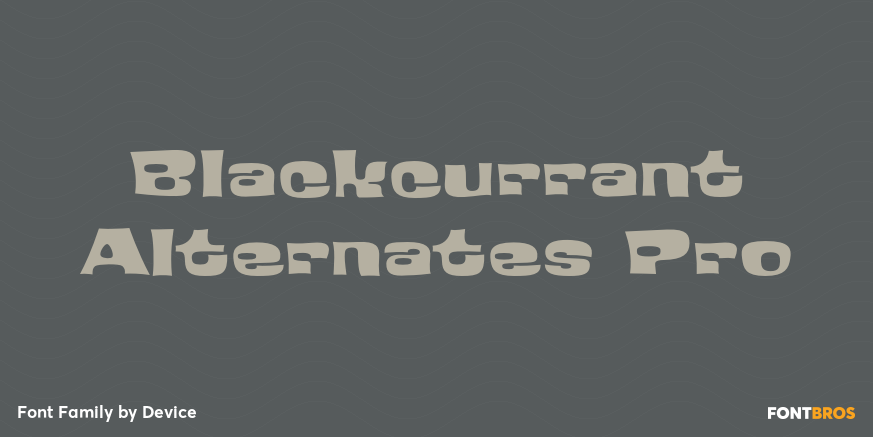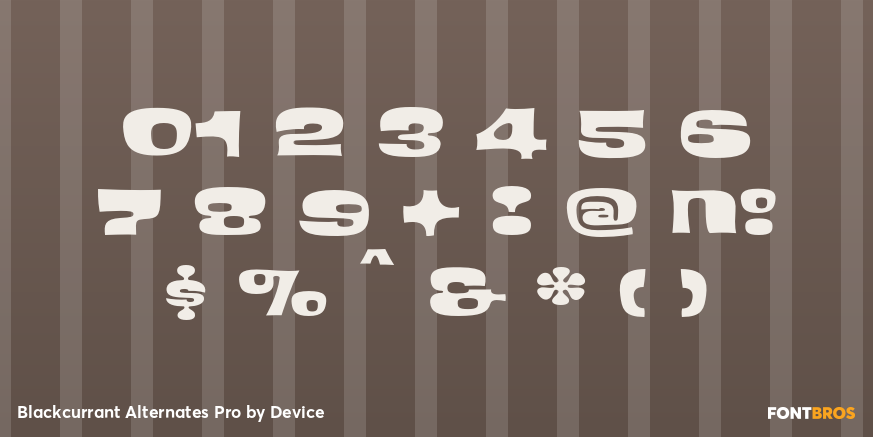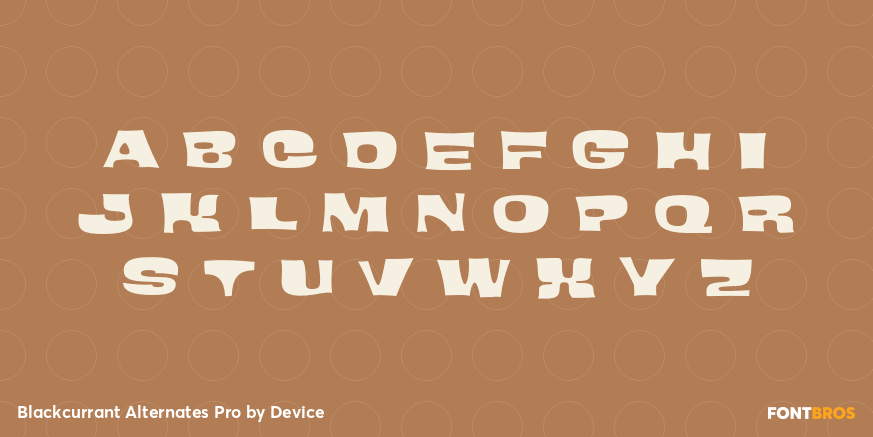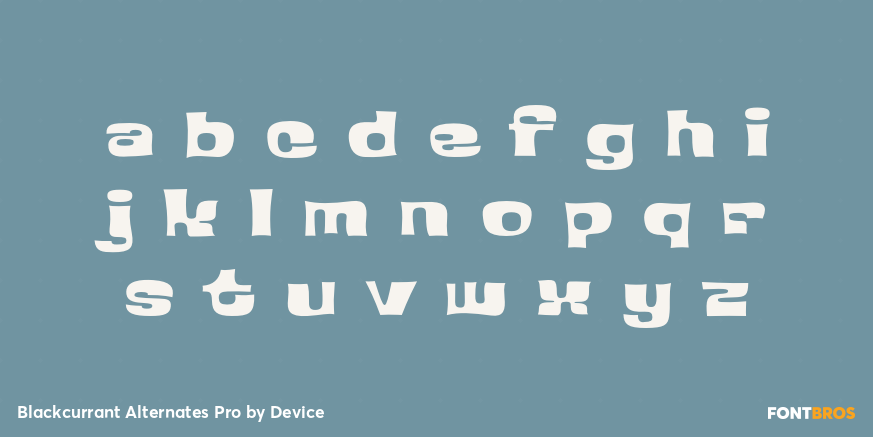
Blackcurrant Alternates Pro
Font Family by Device
Blackcurrant Alternates Pro is a two-style display family from Device with a bold, offbeat personality. Its chunky letterforms and alternate-driven look lean into a distinctly groovy, fun, and wacky mood, with clear 1960s and 1970s references that give layouts an instant retro charge.
This family includes Blackcurrant Squash Alternates and Blackcurrant Black Alternates, offering two expressive ways to push the same playful attitude. It’s a strong fit for posters, branding, packaging, album-style graphics, event pieces, and other display work that benefits from a big visual voice and a throwback feel.